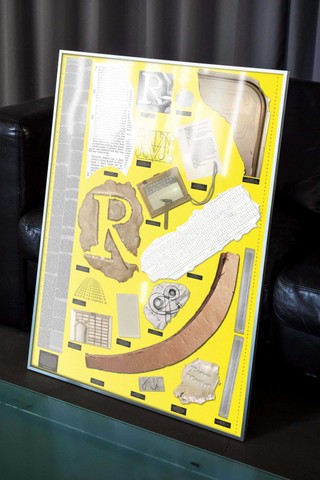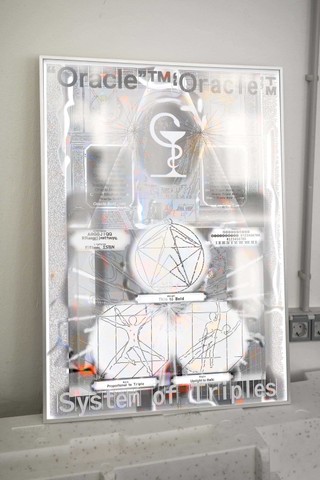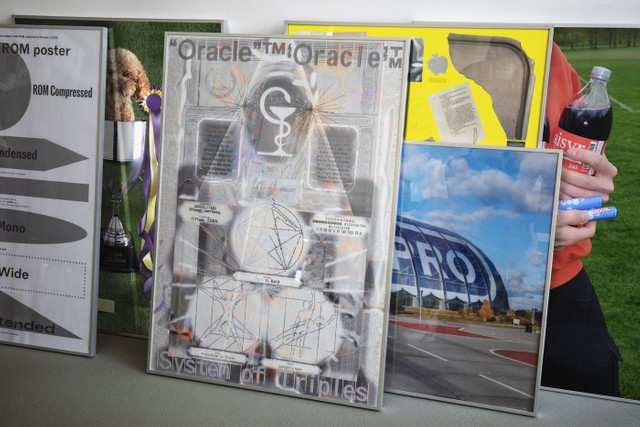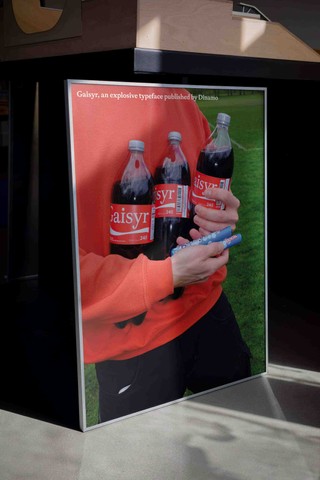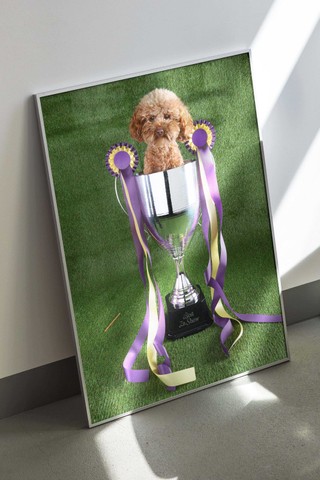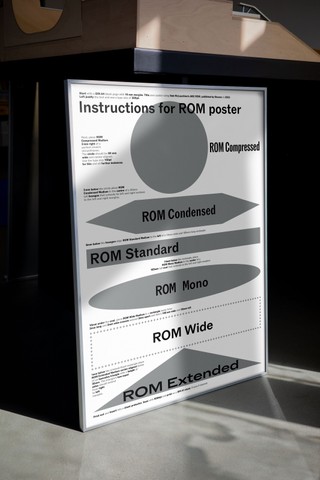
The Dinamo Poster Shop opens today, where you’ll find printed editions of our typeface campaigns. Six of the last year’s releases are newly available as A1 CMYK offset prints.
Gaisyr Poster: Taking part in the mentos + coke internet challenge.
Oracle Poster: Channeling the Oracle of Delphi and her fume-fueled predictions.
Marist Poster: Type archeology with the help of tools sourced from Hermannplatz.
Repro Poster: The laboratory for a unique encircle function.
Gramercy Poster: Winning Best in Show; thank you Jenny Coolidge.
ROM Poster: The spirit of Sol LeWitt for a 60s art catalog-inspired font.
The People Behind the Posters
Sascia + Mati in their Kreuzberg studio
“It’s about creating a world around a font. Which can be silly or unrealistic. We’re trying to create the seed of a narrative...” Revisit the interview with our poster shop designers.